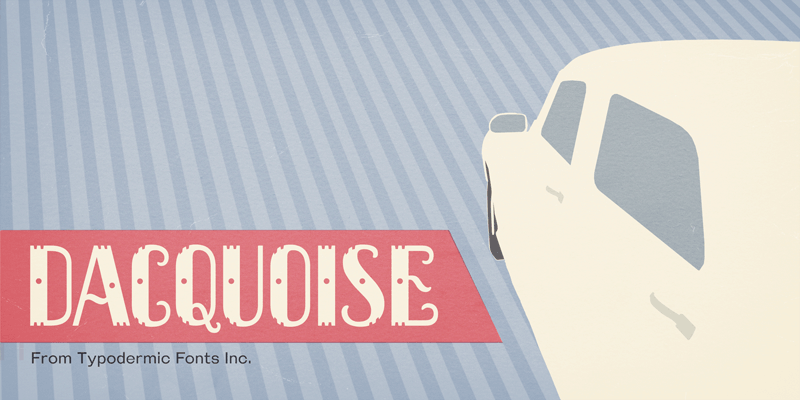
Dacquoise is a fanciful headliner imbued, in a fancy way, with much fanciness. This font includes a license that allows free commercial use: sometimes referred to as a desktop license. This allows you to install the font on a computer and use it to create posters, web graphics, game graphics, t-shirts, videos, signs, logos and more. Read the license agreement for details. If you'd like to embed this font in an app, ebook, on the web or anything that's not covered by the desktop license agreement, visit the link below. You'll find distributors who offer different types of licenses or you can contact me for help. http://typodermicfonts.com/dacquoise/ |